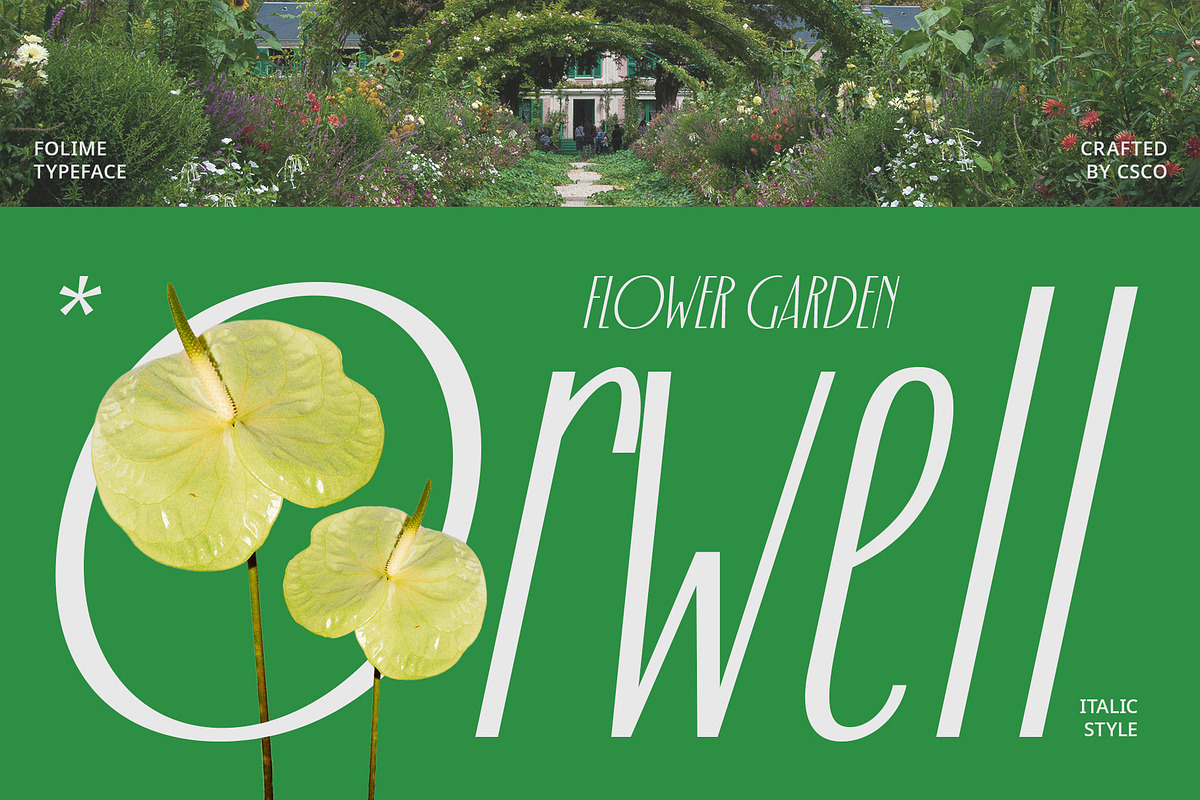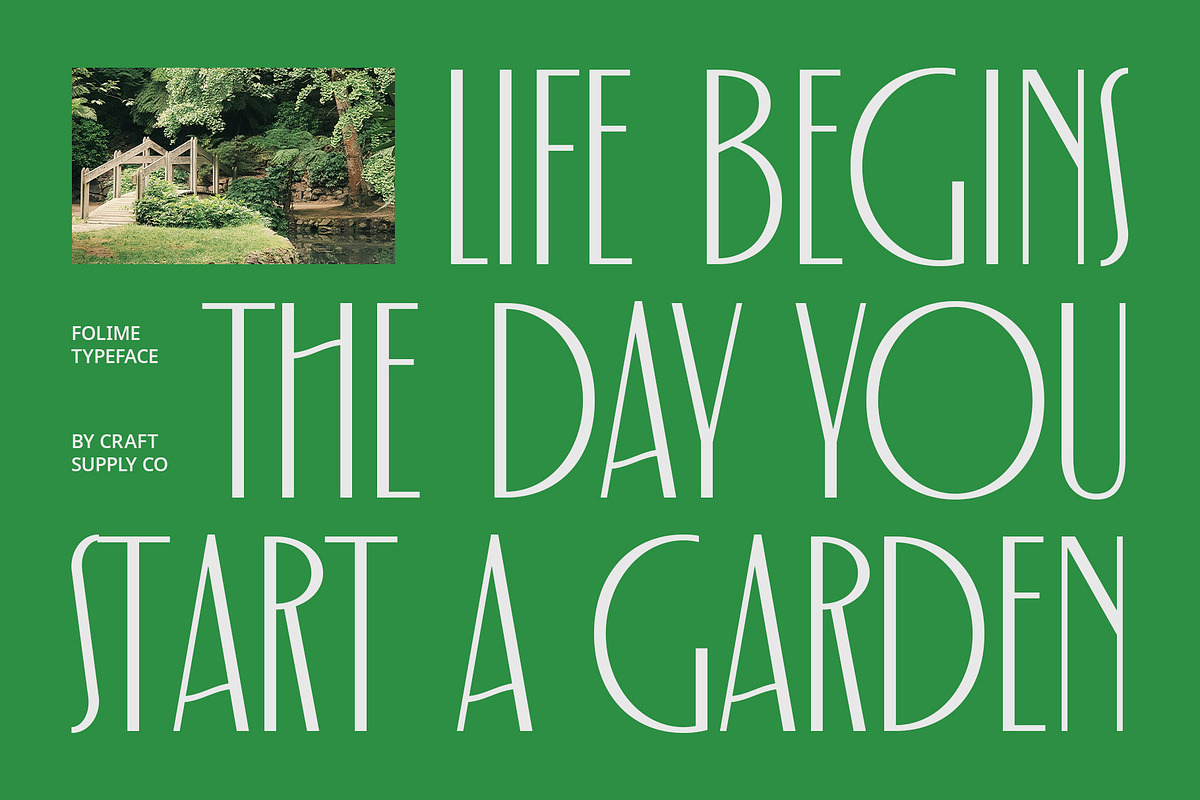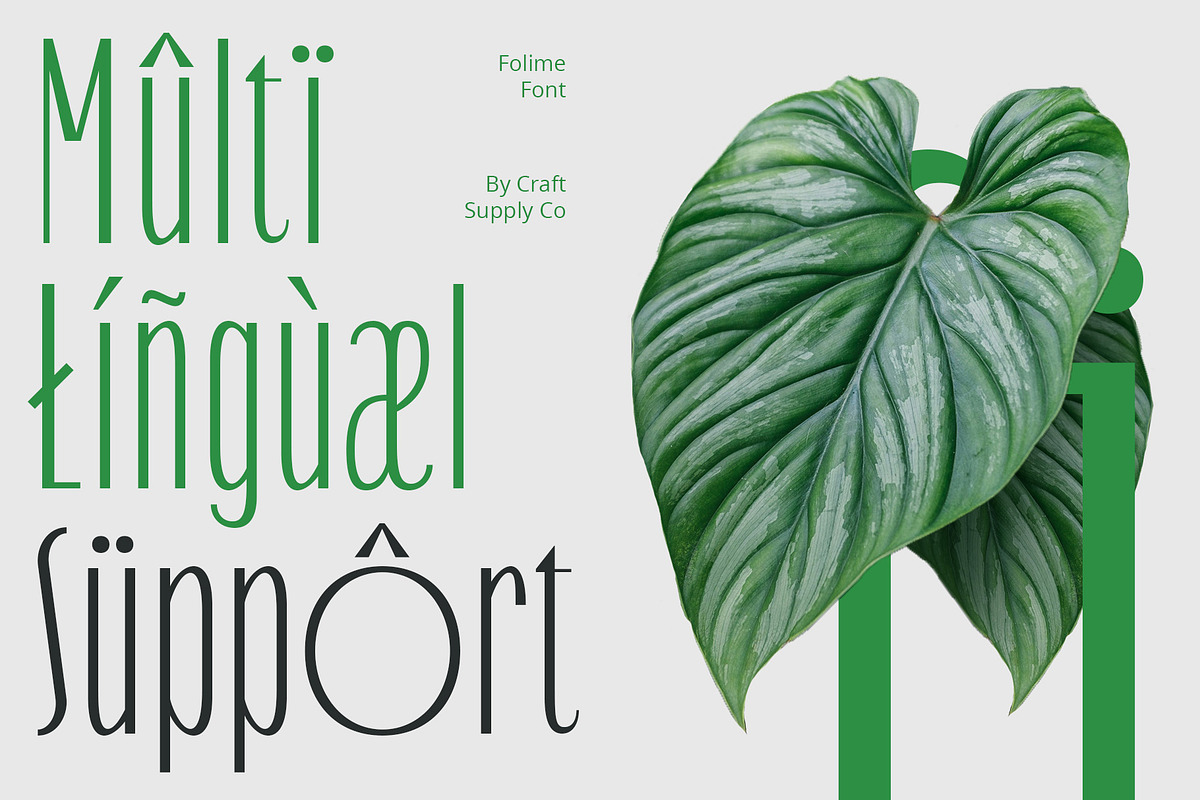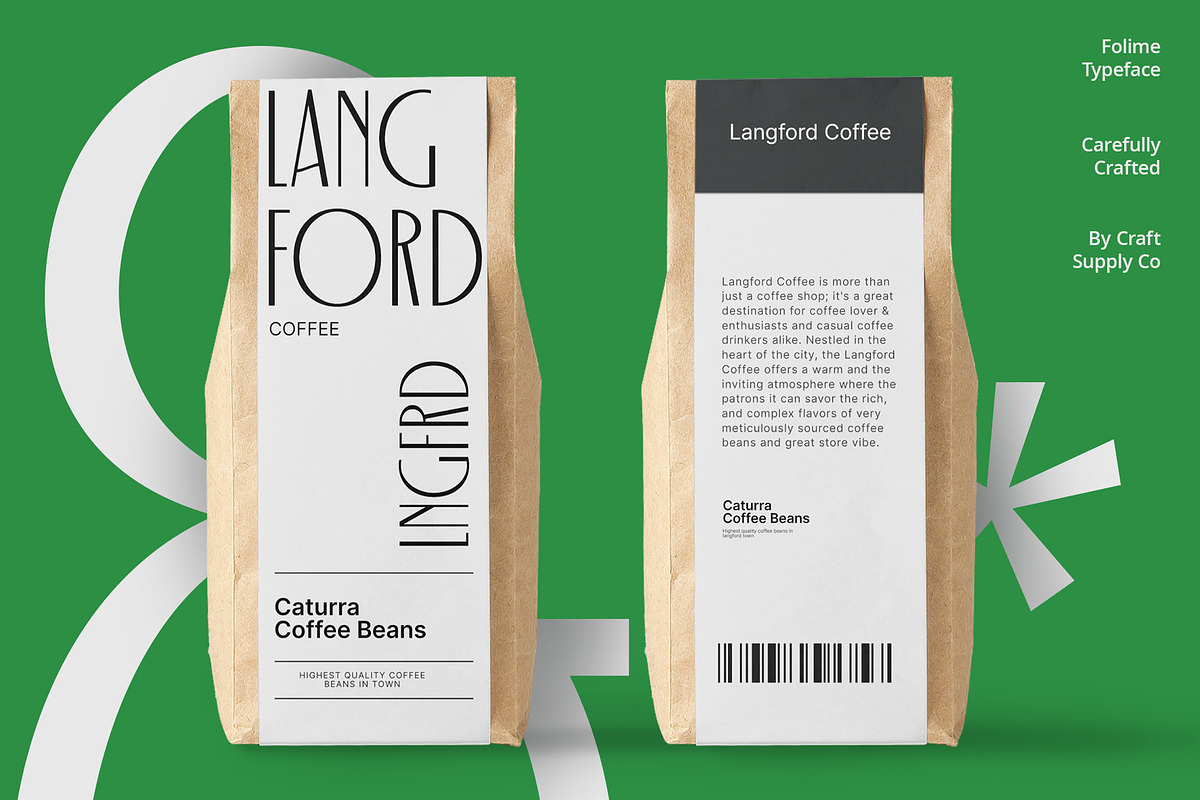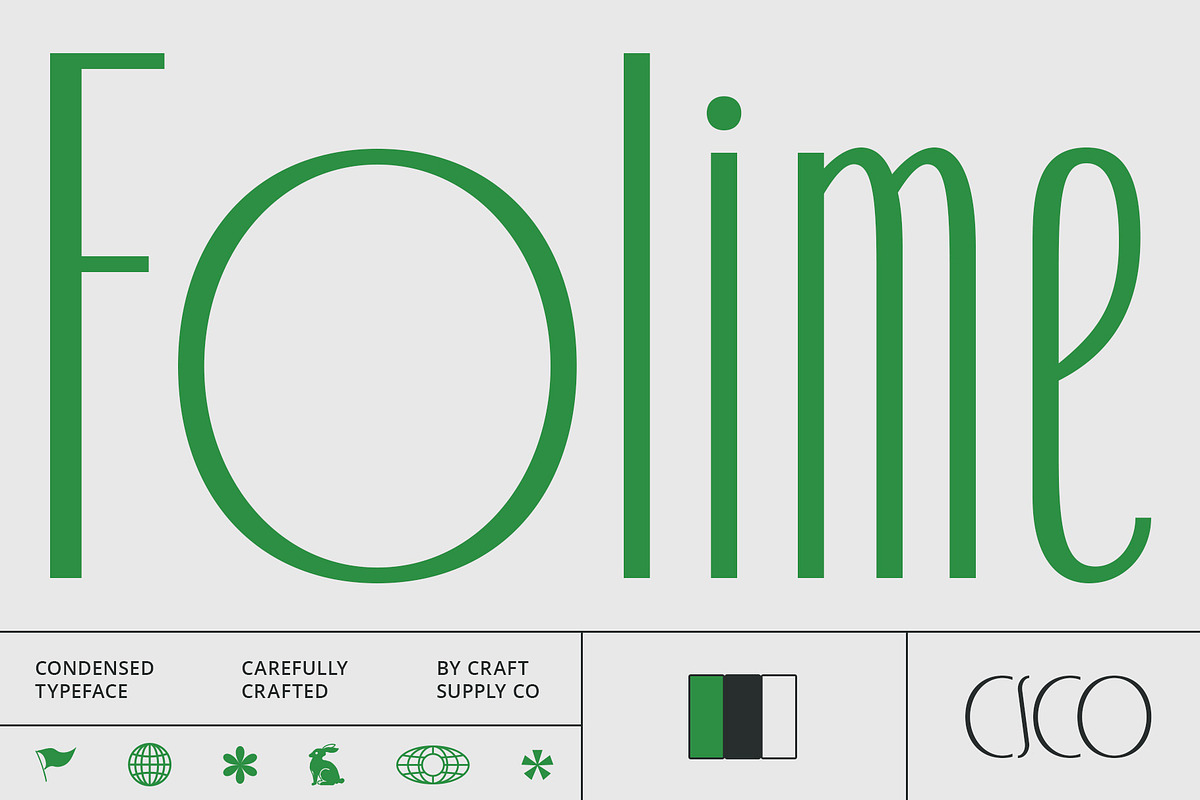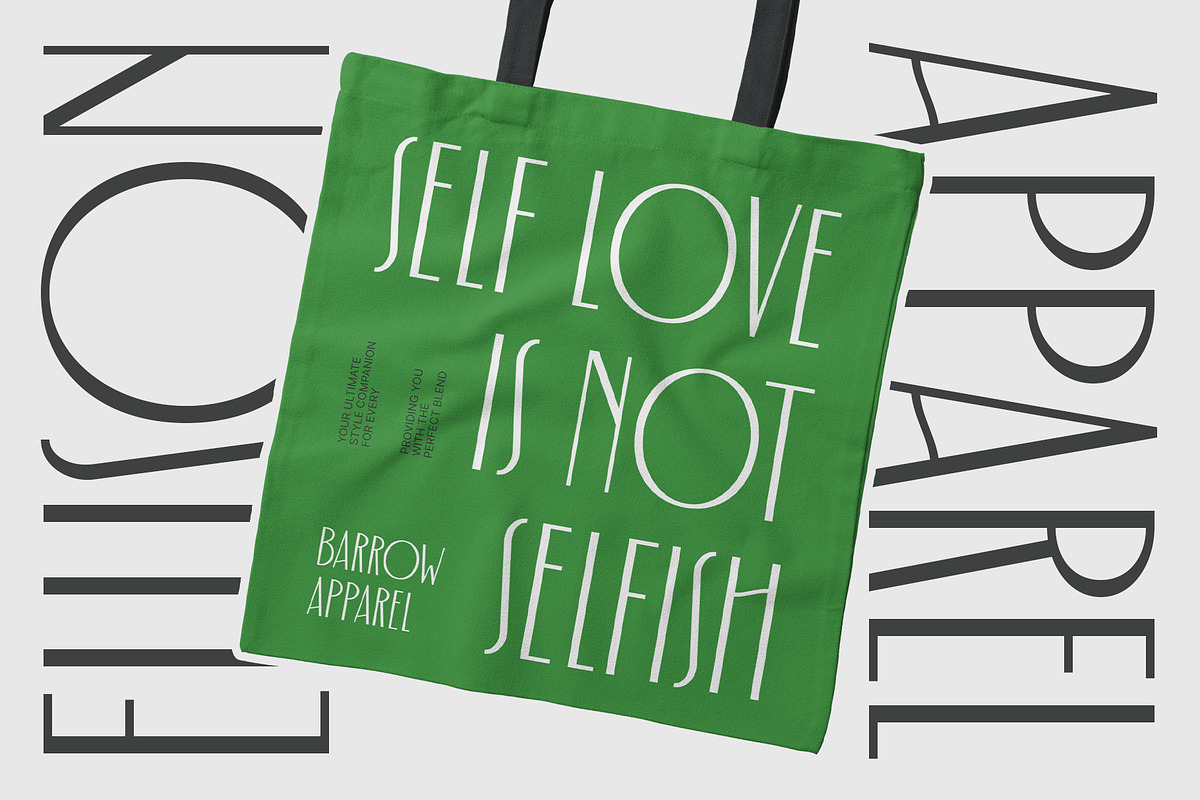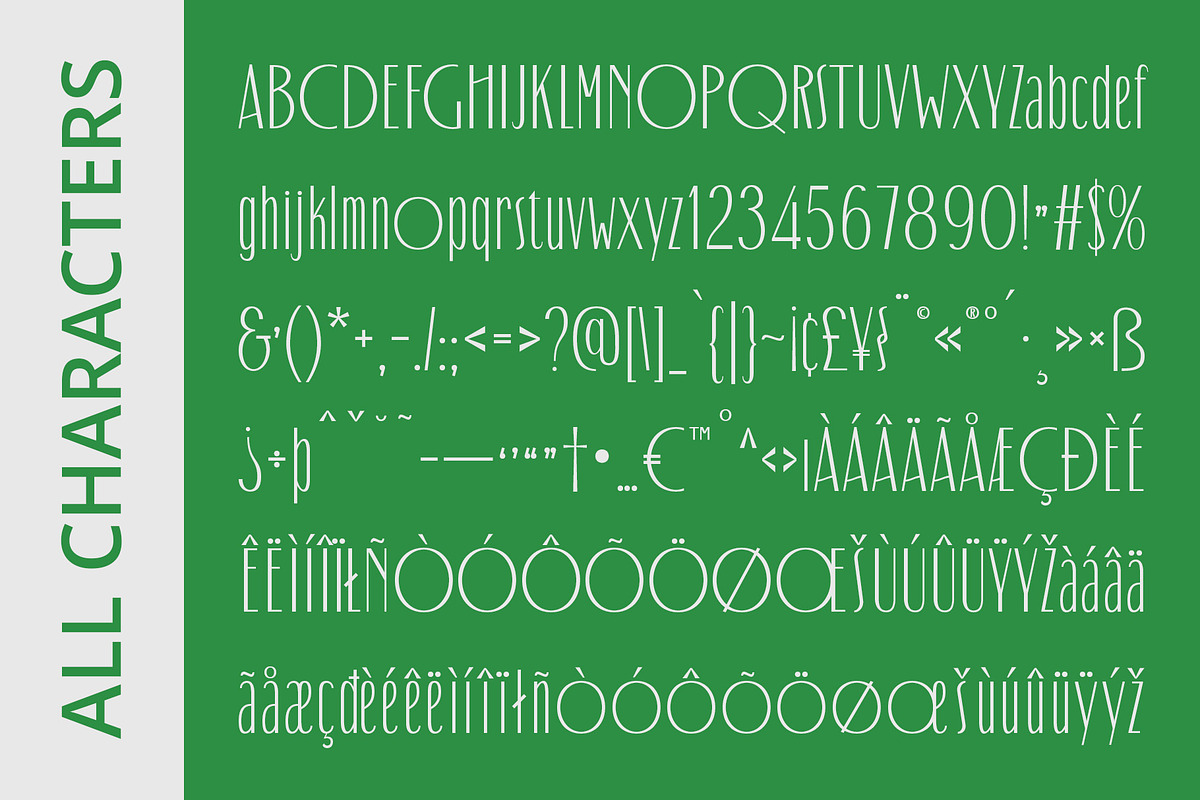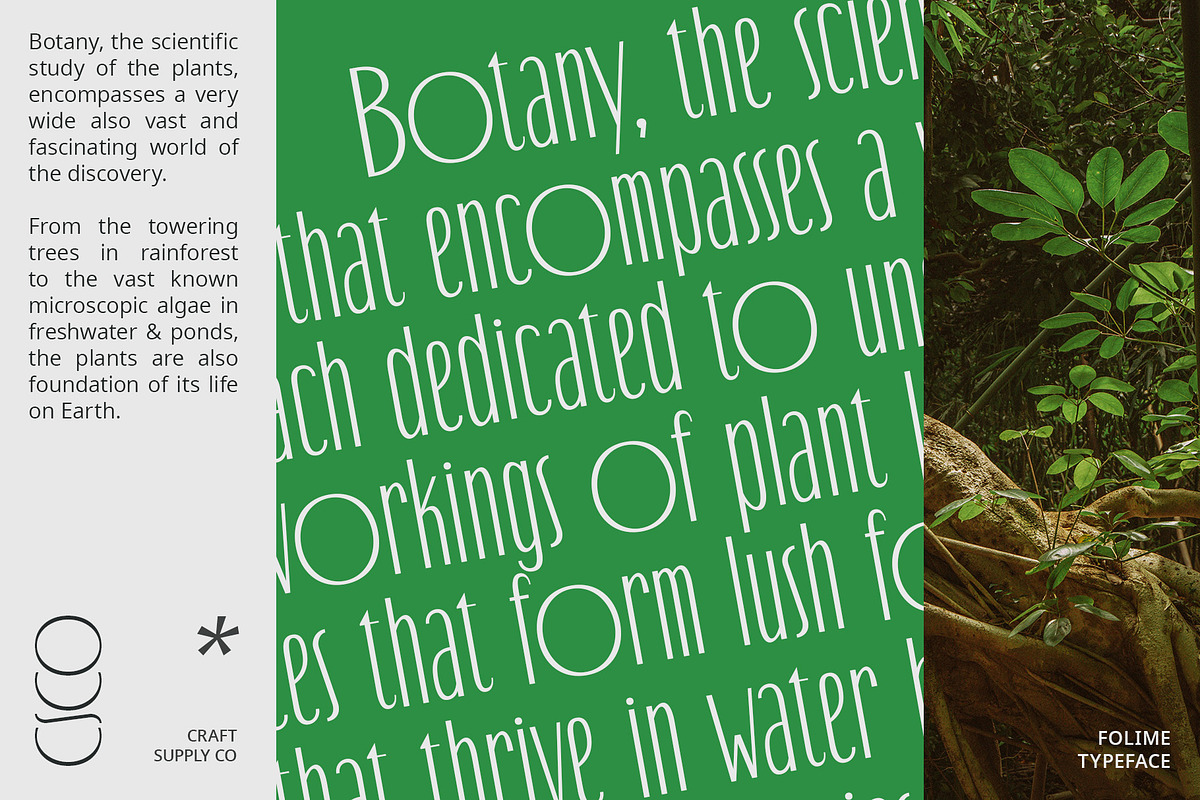
Folime – Condensed Sans Serif
Folime – Condensed Sans Serif: A Modern Typeface for Contemporary Designs
Introduction
Folime presents a sleek and modern condensed sans-serif font that adds charm and character to any design. Its condensed form makes it ideal for creating impactful headlines, banners, and other display projects with limited space.
Versatile Design
Despite its condensed form, Folime remains versatile and stylish, making it suitable for a wide range of design applications. Whether crafting a sleek corporate identity, a modern website, or stylish packaging, Folime’s clean lines and contemporary feel elevate your project.
Ideal for Headlines and Branding
Folime excels in headlines and branding, thanks to its condensed form and modern aesthetic. It grabs attention and makes a statement, ensuring your message resonates clearly.
Enhance Your Designs
Infuse your designs with charm and modernity using Folime. Its condensed sans-serif style guarantees your projects stand out, leaving a lasting impression.
Conclusion
In conclusion, Folime is a versatile and stylish font that is perfect for modern design projects. Whether you’re working on a corporate identity, a website, or packaging, Folime’s clean lines and contemporary feel will elevate your designs and make them truly stand out.